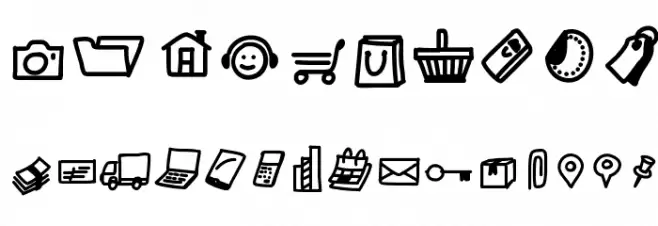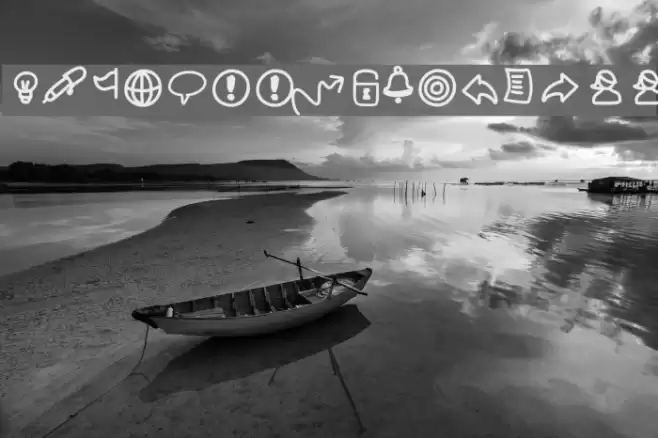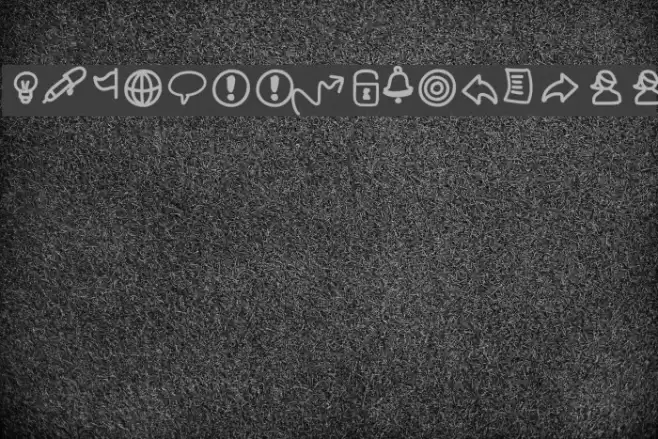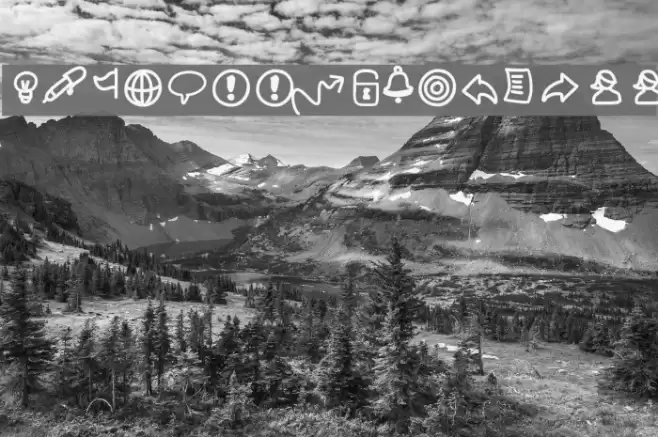
A playful, hand-drawn icon set with bold, rounded strokes and a casual, informal appearance. The icons are simple, easily recognizable, and maintain consistent line thickness throughout. The style is approachable and friendly, with a slightly uneven, organic feel typical of hand-sketched illustrations.
Hand-drawn, bold, playful icon set with a casual style from Uncategorized fonts.
- Proposed Projects: Mobile apps, websites, infographics, educational materials, presentations, children's products.
- Overall Style: Playful, Hand-drawn, Informal
- Use Case: Icons, UI elements, Decorative accents